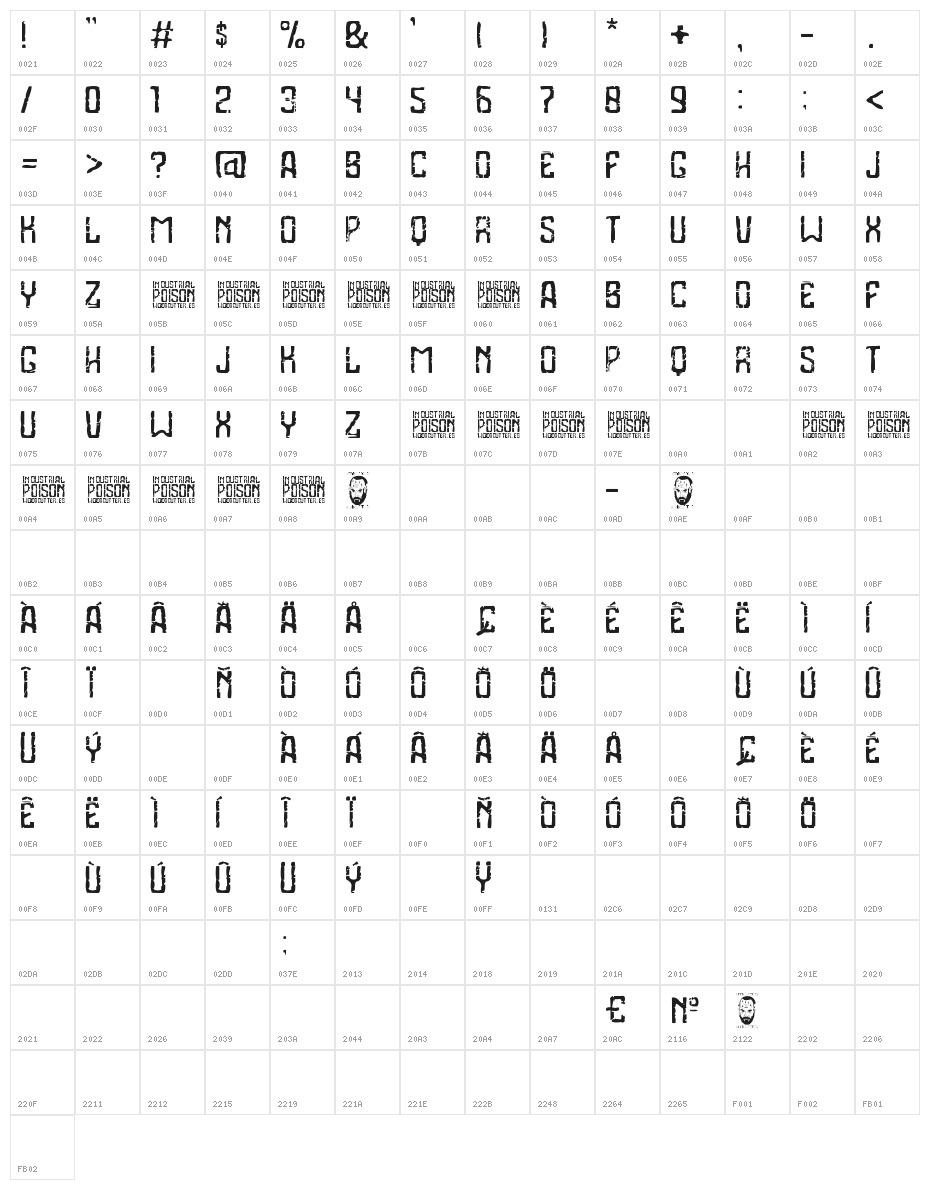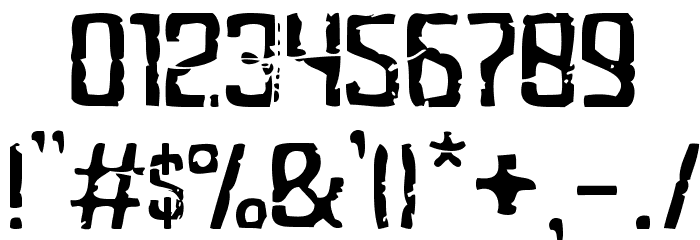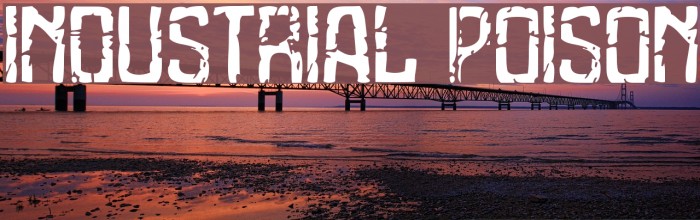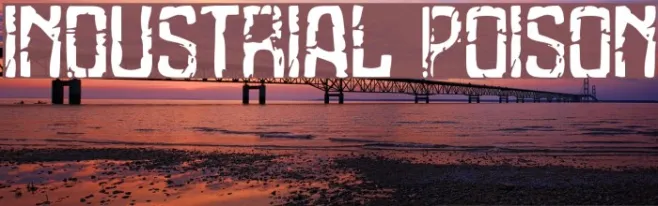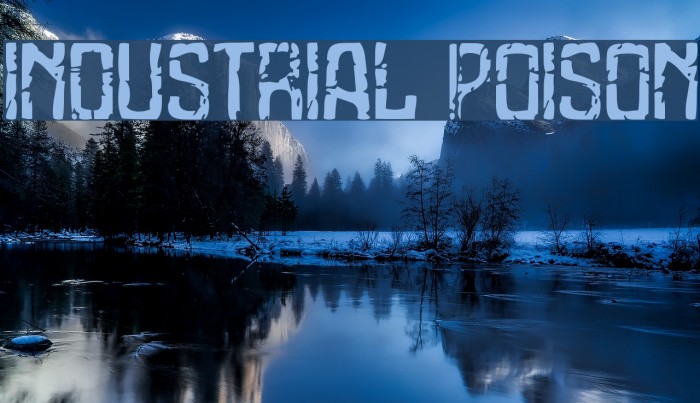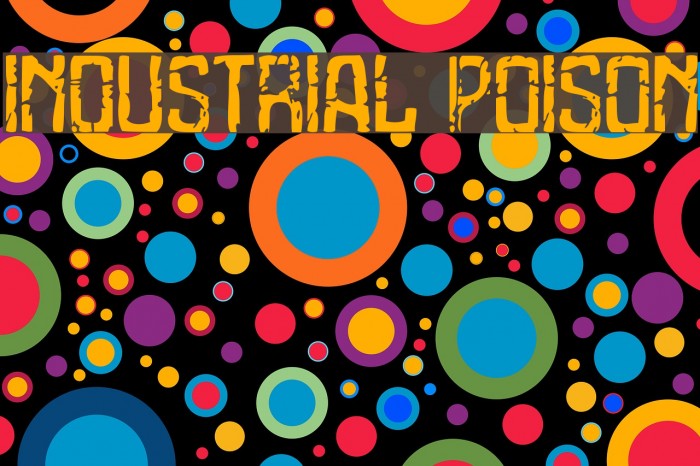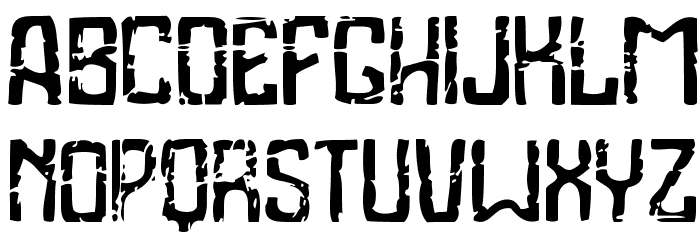
Industrial Poison Font
Industrial Poison Description
This font features a rugged, distressed appearance, reminiscent of industrial decay or urban graffiti. The characters are bold and heavily stylized, with irregular edges and a grunge texture that gives them a worn, weathered look. The uppercase and lowercase letters maintain a consistent height, creating a uniform appearance despite the chaotic detailing. Numbers and special characters follow the same design principles, ensuring a cohesive aesthetic across all glyphs. This font's unique style makes it ideal for projects that require a gritty, edgy feel.
| Overall Style | Industrial, Grunge |
| Proposed Projects | Ideal for album covers, posters, streetwear branding, or any project needing an edgy, urban vibe. |